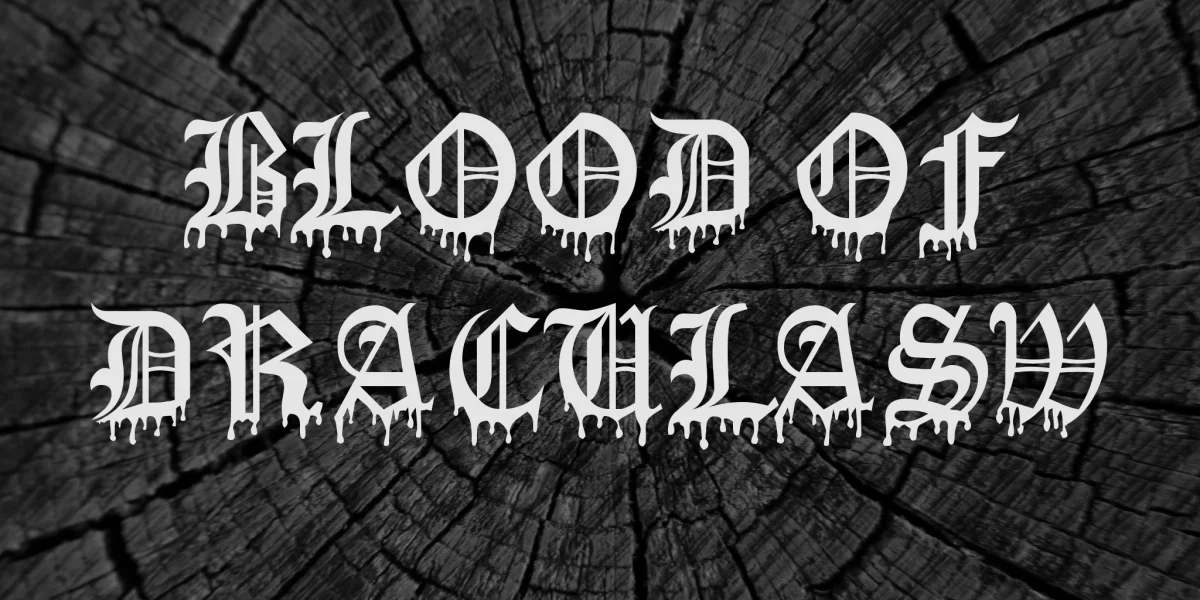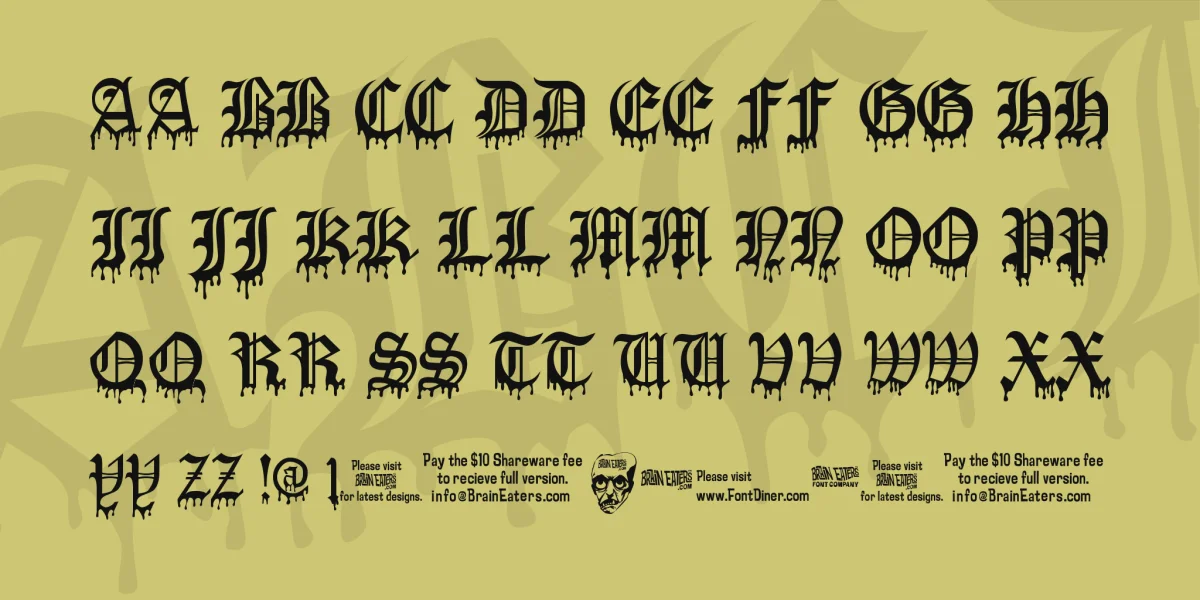
This font is from Brain Eaters Font Co. Fonts based on B-Movies, Horror, Sci-Fi, Exploitation and other trash.
I first saw this font style on an old Hammer Films production. I forget the actual title of the movie, so I chose this seemingly appropriate name. An old english style font, or if you prefer gothic, dripping with blood!